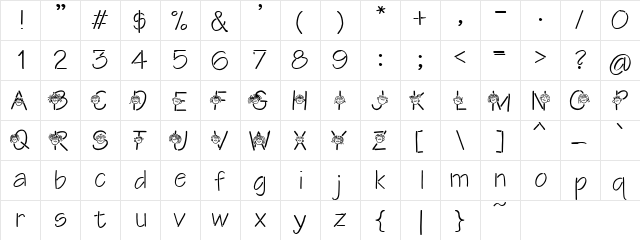
PC Kidz Regular
Design Context for PC Kidz Typeface
PC Kidz is a composed and adaptable typeface that performs quietly and consistently across a wide range of design contexts.